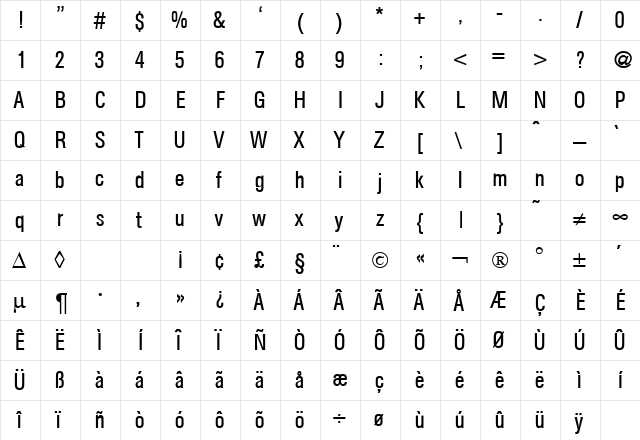
AtkinsCond Regular
Design Context for AtkinsCond Typeface
AtkinsCond takes a measured approach to typography — its balanced proportions and neutral character make it a reliable workhorse for both digital and print work. Its narrow stance lets it pack a punch even in space-constrained designs.